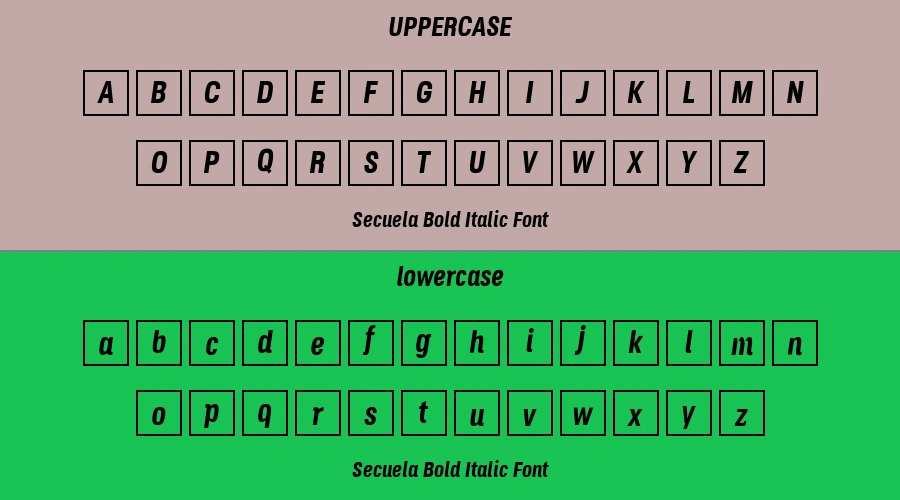
About Secuela Bold Italic Font
Secuela Bold Italic Font stands out for its distinctive combination of humanist proportions and consistency. Ideal for architectural plans, it provides the reliability and sophistication that professional projects demand. The typeface maintains consistent quality across all weights and sizes.
Key features include refined concave curves and practical tabular figures, enhancing typographic expression. In promotional materials applications, Secuela Bold Italic Font demonstrates exceptional texture integration. The stroke contrast and design lineage contribute to its distinctive character and professional appeal.